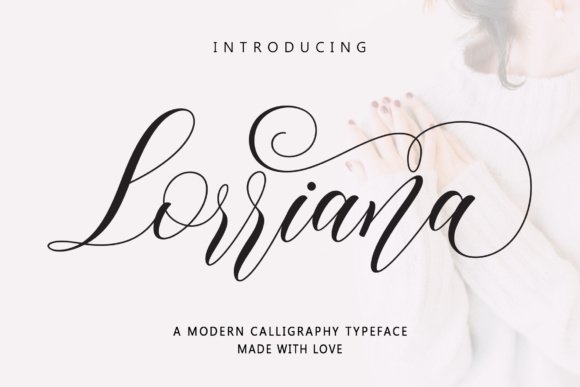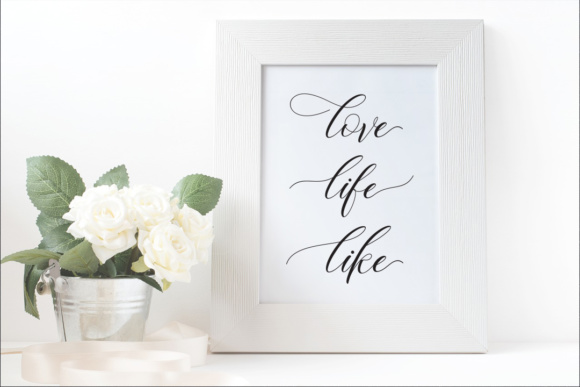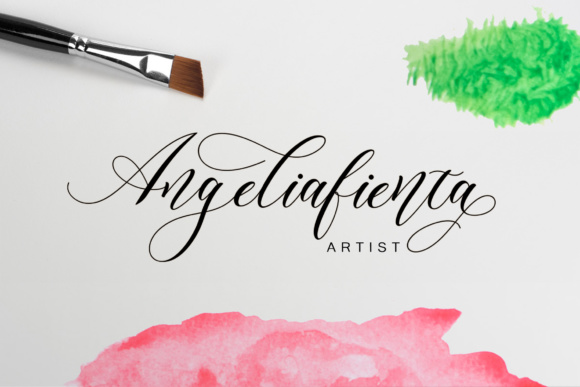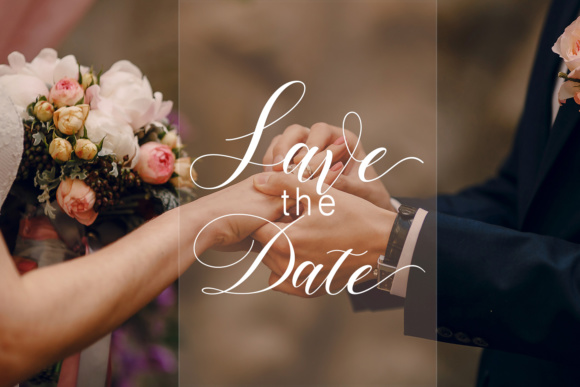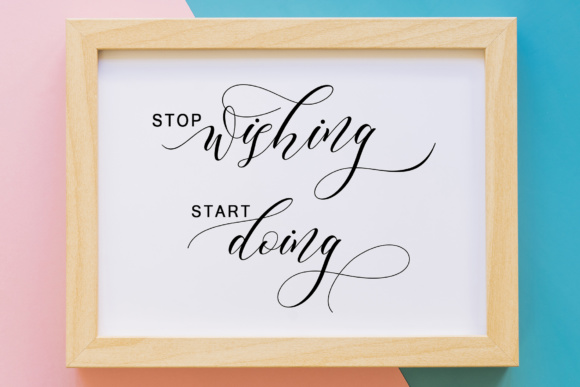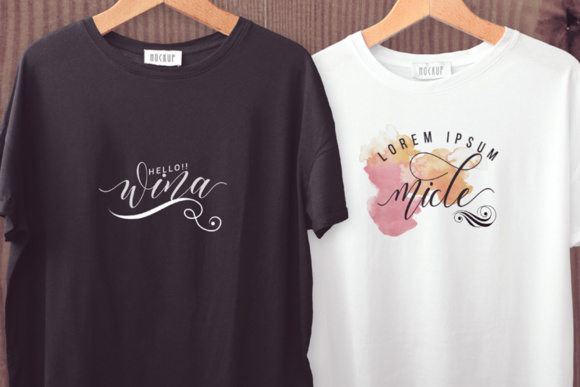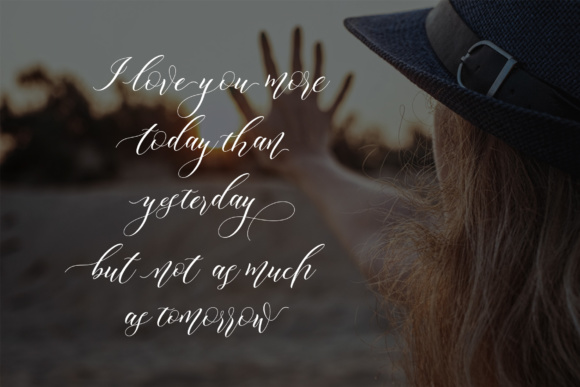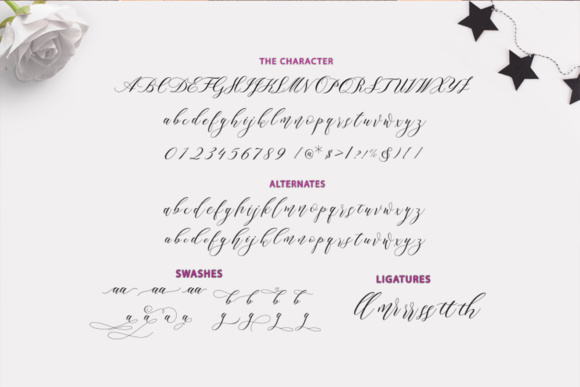
Lorriana Font
Lorriana is a beautiful modern calligraphy script with tons of swashes and elegance. This font excels in print design, and works as the headlining focal point to your projects.